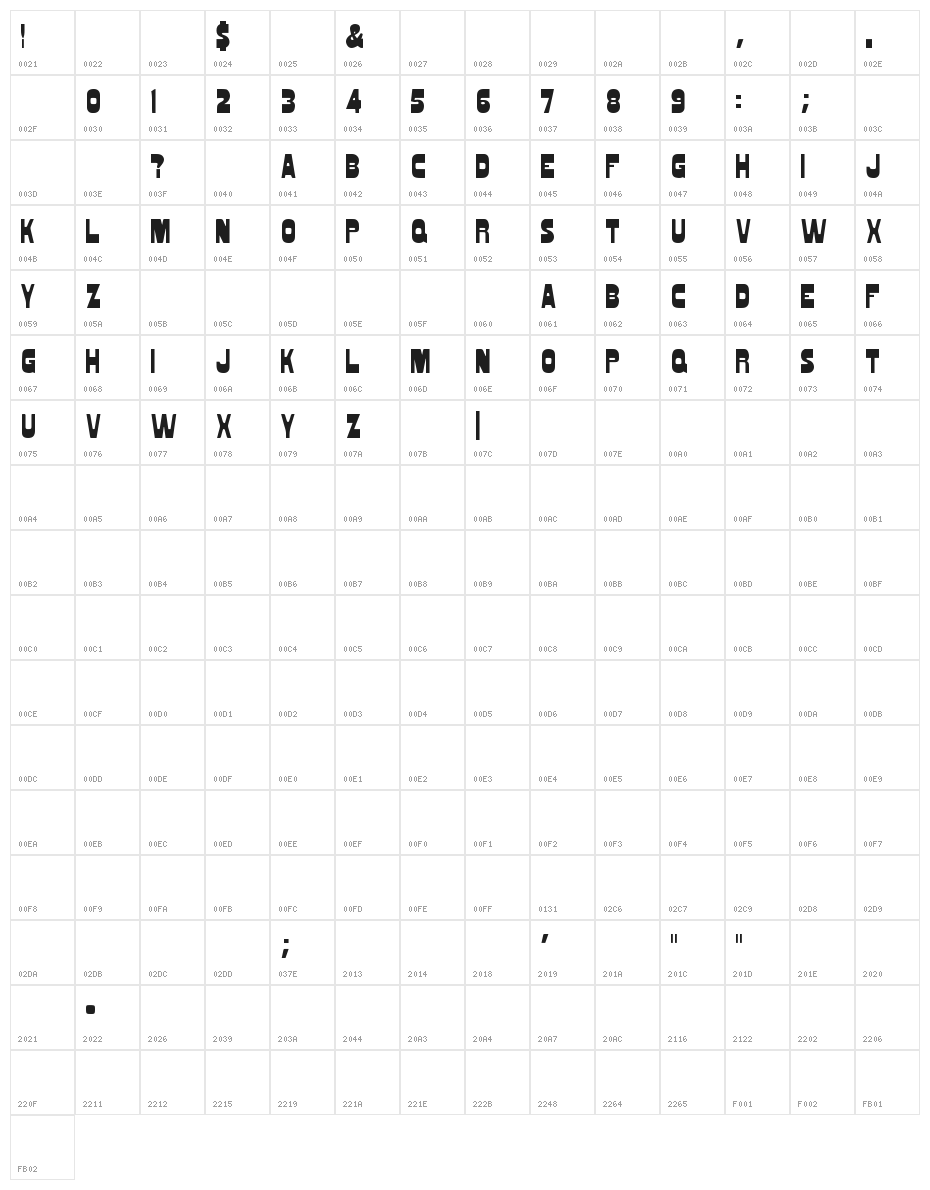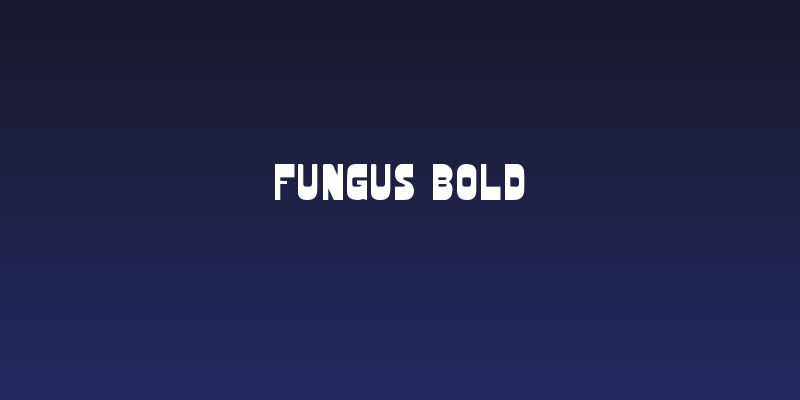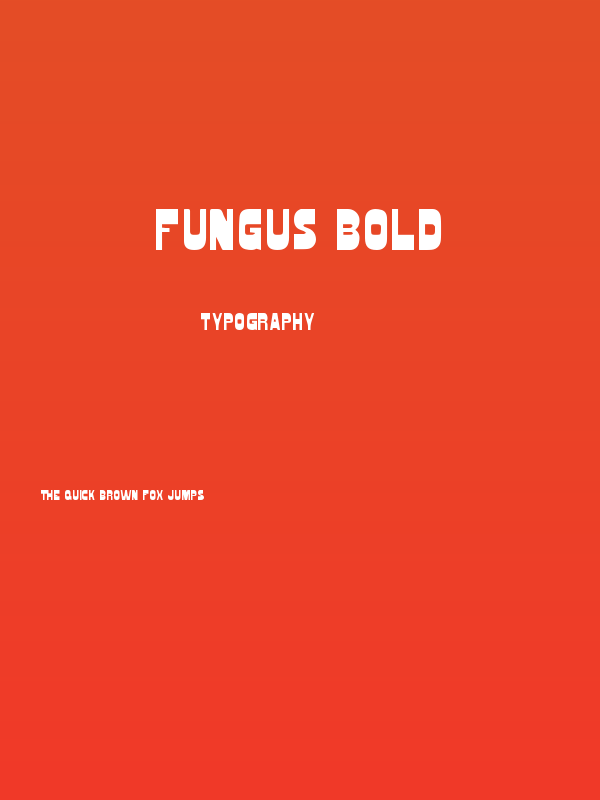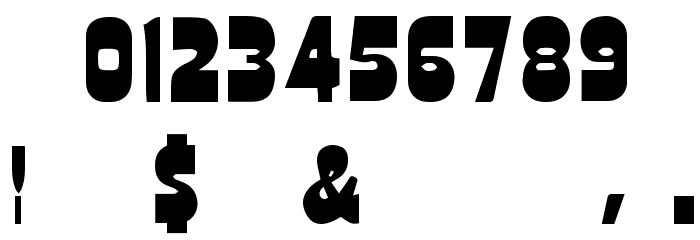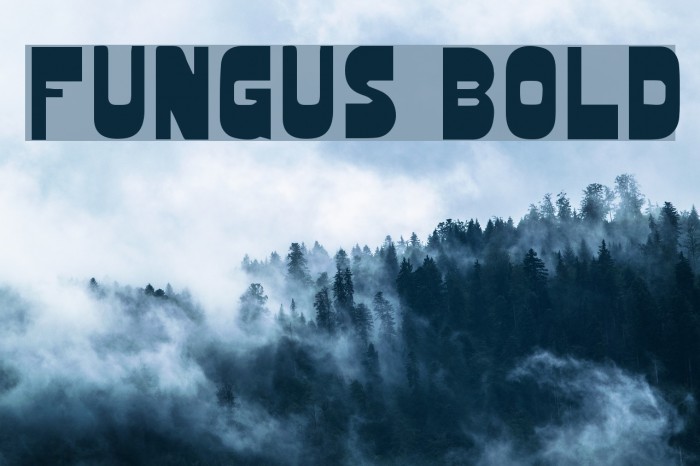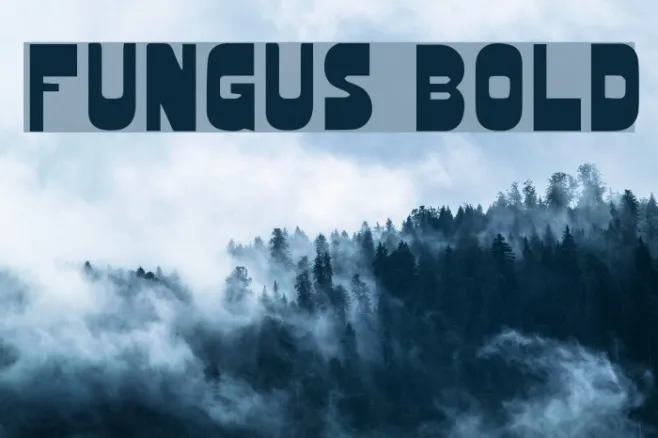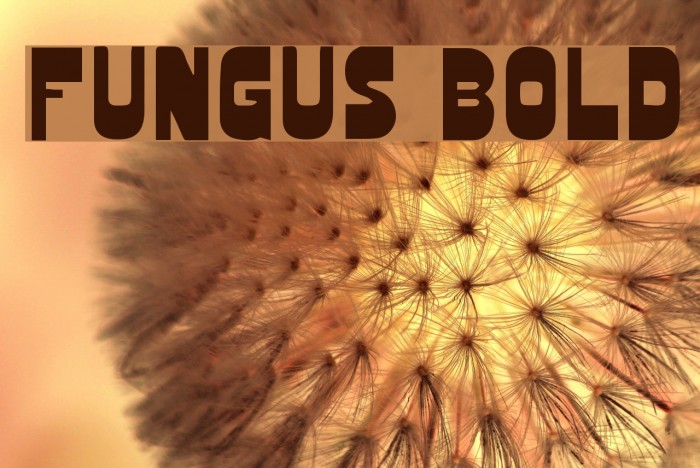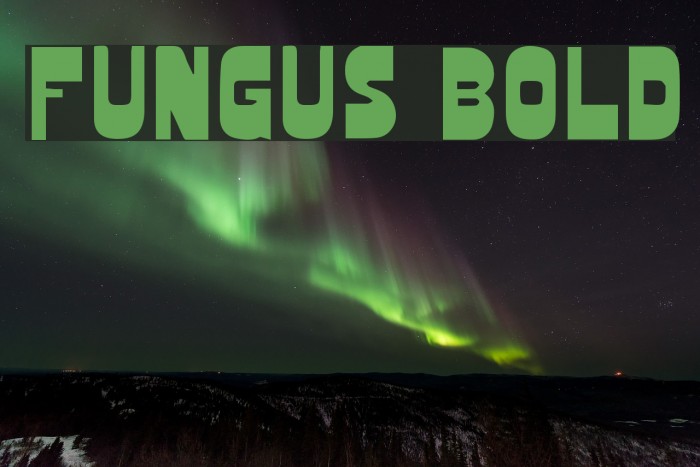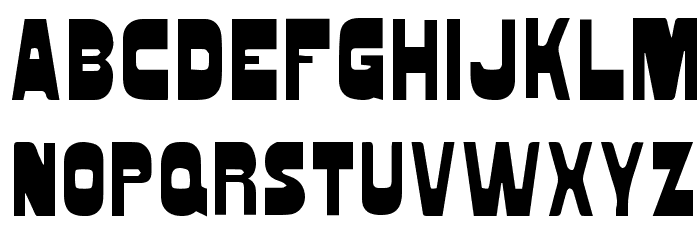
Fungus Bold Font
This bold, decorative font features a unique and playful design with thick, heavy strokes that create a strong visual impact. The characters have a slightly condensed appearance, with some letters showcasing quirky, unexpected angles and curves that add to its distinctive style. The font maintains consistent stroke weight throughout, offering a uniform look across all characters. Its boldness and decorative elements make it suitable for eye-catching designs. The numbers and special characters are equally bold and maintain the playful aesthetic, ensuring cohesion across all elements.
| Proposed Projects | Ideal for posters, logos, headlines, and any design project that requires a bold, attention-grabbing typeface. |